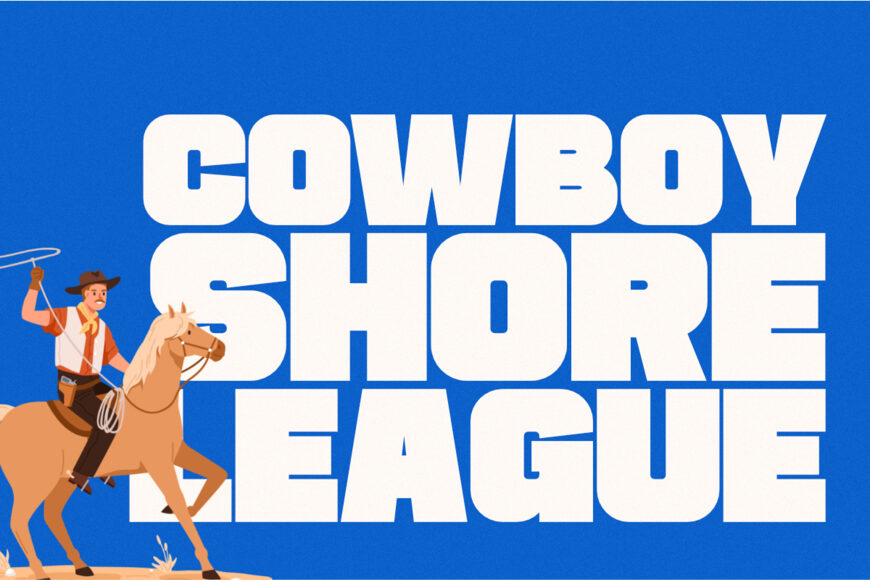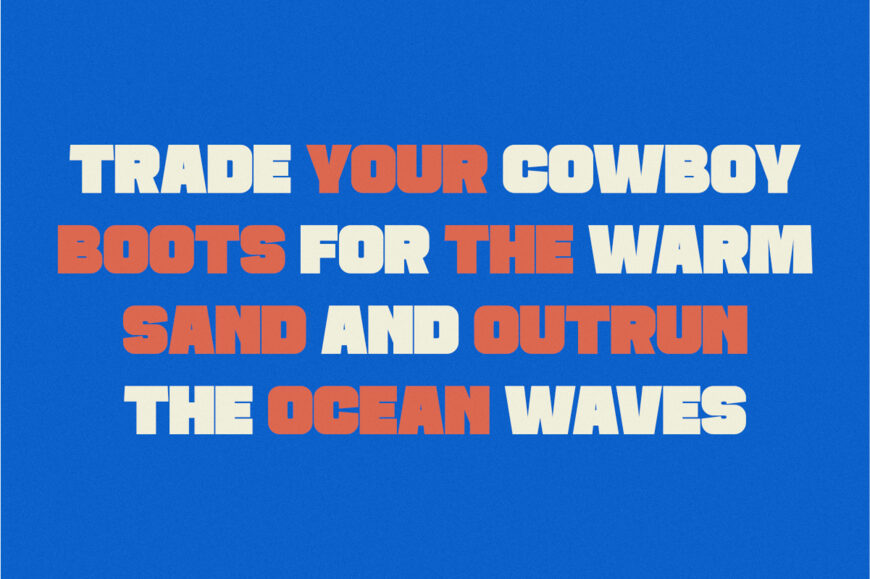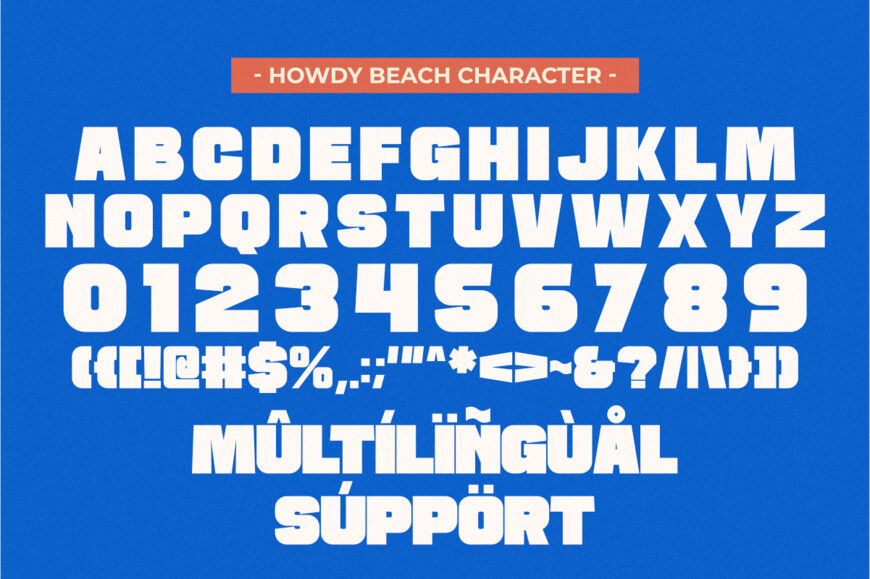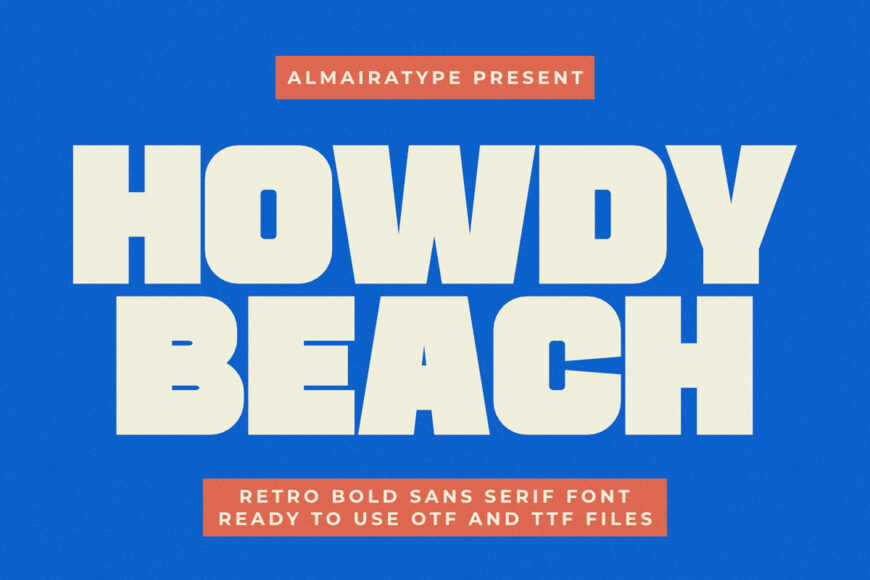
Howdy Beach Font
Howdy Beach is a bold retro sans serif font meticulously designed to bring a delightful vintage warmth and high-impact aesthetic to your modern creative projects. Featuring a robust, thick structural anatomy with a solid display weight and smoothly rounded geometric contours, this typeface beautifully bridges the gap between classic 70s nostalgia and contemporary commercial design trends.